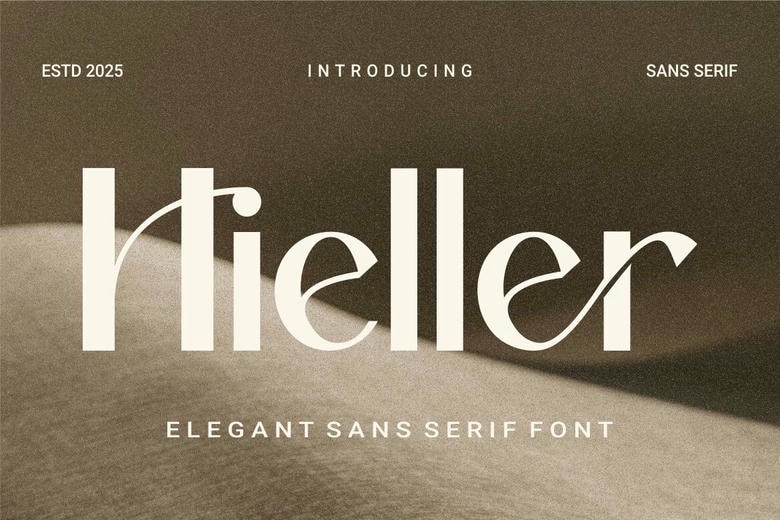
Hieller Font
Hieller is a clean and elegant sans serif typeface with slight flourishes that give it a distinct modern feel. It is simple and stylish enough to be ideal in branding, editorial design, and high-end packaging where classic and sophistication intersect.
Hieller Sans Serif Font